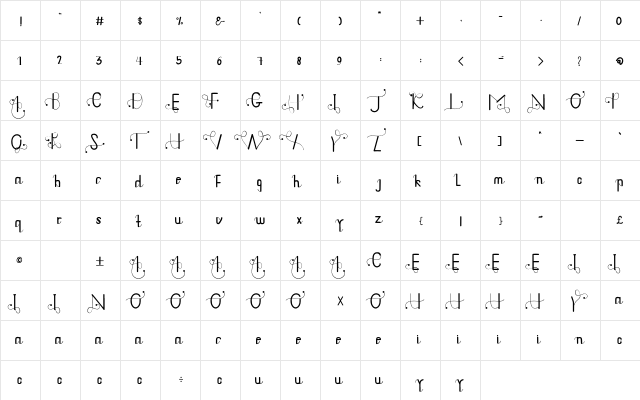
Doughnutz Regular
| Foundry | Edric Studio |
| Designer | Saila Nurrisalma & Sarah Suci P |
Design Context for Doughnutz Typeface
Doughnutz is a composed and adaptable typeface that performs quietly and consistently across a wide range of design contexts.